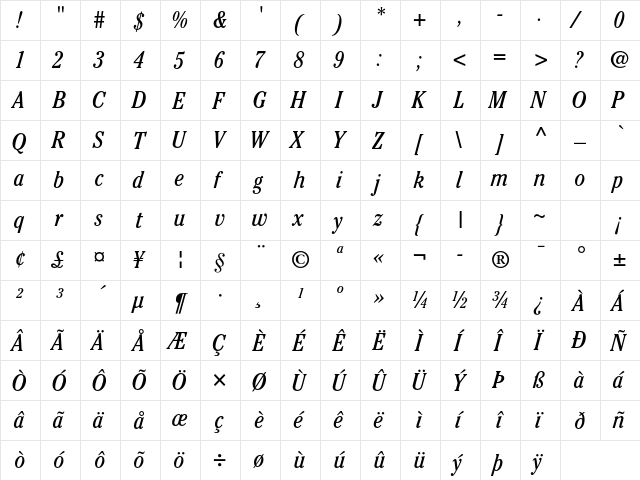
ITC Cheltenham Std Book Condensed Italic
| Designer | Tony Stan |
Design Context for ITC Cheltenham Std Typeface
ITC Cheltenham Std is a composed and adaptable typeface that performs quietly and consistently across a wide range of design contexts. The dynamic lean of this cut emphasises speed and emphasis in any layout. The condensed width makes it efficient for tight spaces without sacrificing legibility.
Pro Tip: Use ITC Cheltenham Std for emphasis, pull quotes, and subheadings where its slanted energy can add rhythm to the layout.